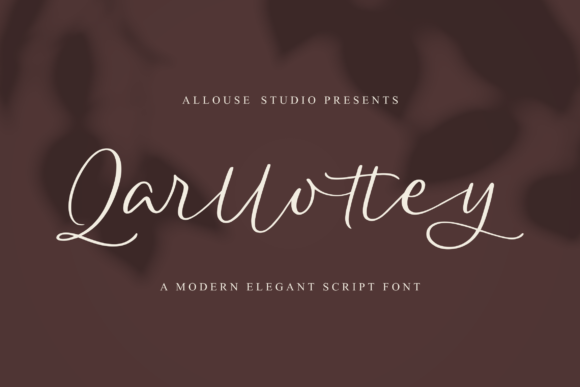
Introducing Qarllottey Font: The Epitome of Elegance and Modernity in the World of Script Fonts
In a world saturated with digital clutter, your designs deserve to stand out with a touch of sophistication and grace. Enter Qarllottey Font, the enchanting script font crafted by allouse.studio, designed to captivate your audience with its classy, elegant, and modern appeal.
With Qarllottey Font in your design arsenal, you'll have the power to transform ordinary text into captivating visual masterpieces. Its meticulously crafted curves and flourishes exude an aura of timeless beauty that will add an instant touch of refinement to your logos, branding, invitations, stationery, wedding designs, social media posts, and more.
More than just a font, Qarllottey Font is an expression of creativity and individuality. Its versatile nature allows you to effortlessly create designs that reflect your unique style and vision. Whether you're looking to craft elegant logos that command attention or create alluring invitations that leave a lasting impression, Qarllottey Font is your secret weapon.
In the realm of wall text, Qarllottey Font shines as the ultimate choice for creating captivating displays that demand attention. Its carefully designed characters, crafted to perfection, will bring your words to life, transforming walls into captivating works of art.
With Qarllottey Font, you'll have the power to:
- Capture attention and create a lasting impression with your designs.
- Express your creativity and individuality through your designs.
- Create elegant and modern designs that stand out from the crowd.
- Transform your wall text into captivating visual masterpieces.